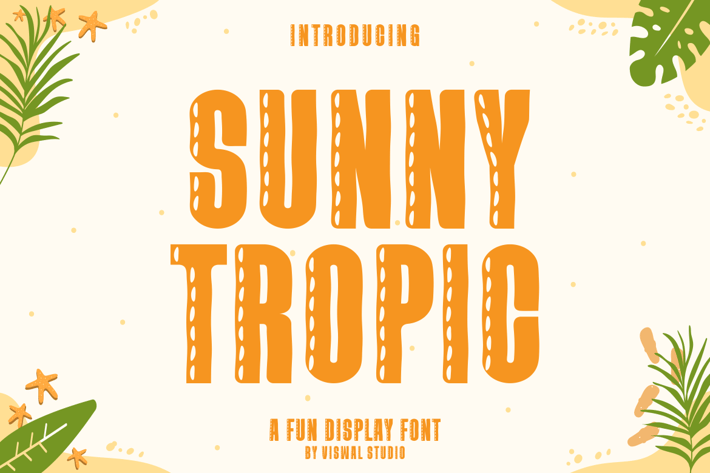
Sunny Tropic - Summer Font
Presenting Sunny Tropic - Font is suitable for badge, labels, logo, branding, magazine, poster and etc. Our fonts have Uppercase & Lowercase, Numeral & Punctuation, Multilingual support and Opentype Features. For Amazing designs you can mix with other fonts as a complement.